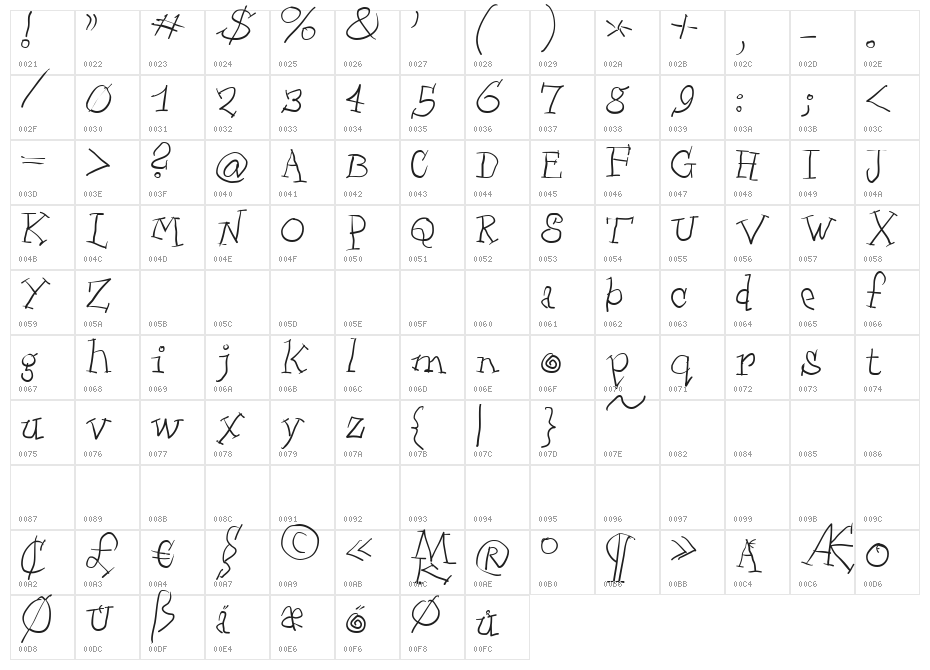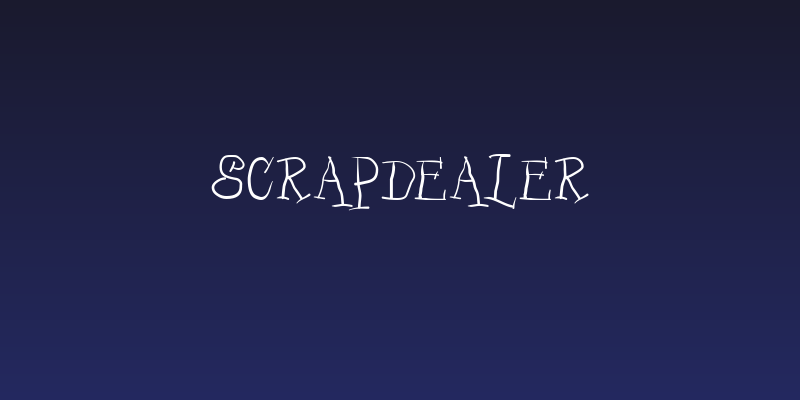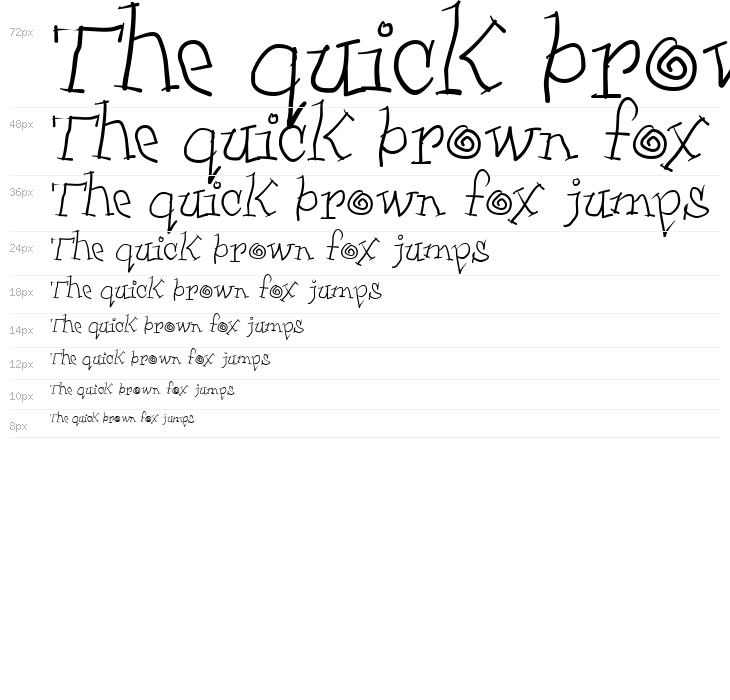
ScrapDealer Font
ScrapDealer Description
This font exudes a playful and whimsical character, with its uneven, hand-drawn appearance. The letters are irregular in shape, giving a sense of spontaneity and creativity. The strokes vary in thickness, adding to the casual and artistic feel. Each character seems to dance on the baseline, with quirky details like loops and curls that enhance its unique style. The numbers and special characters maintain this lively aesthetic, ensuring consistency across the font. It's perfect for projects that require a touch of fun and individuality.
| Proposed Projects | Ideal for children's books, creative posters, greeting cards, and playful branding. |